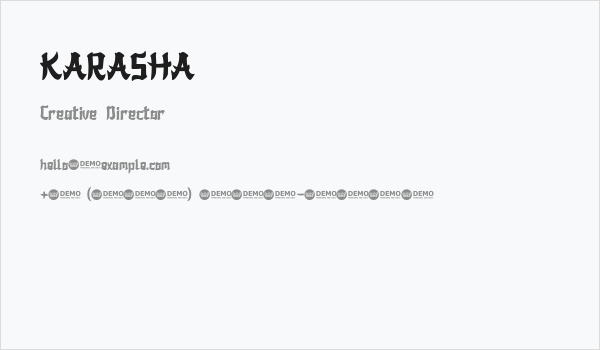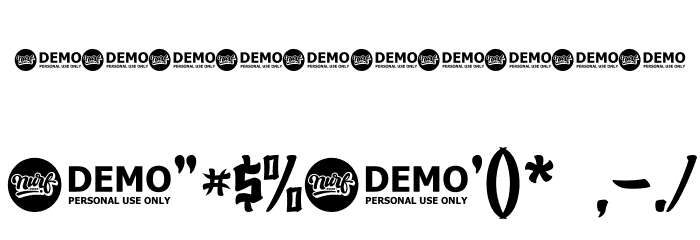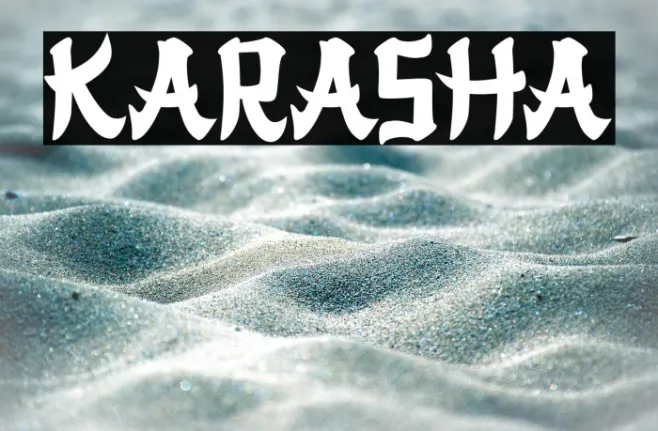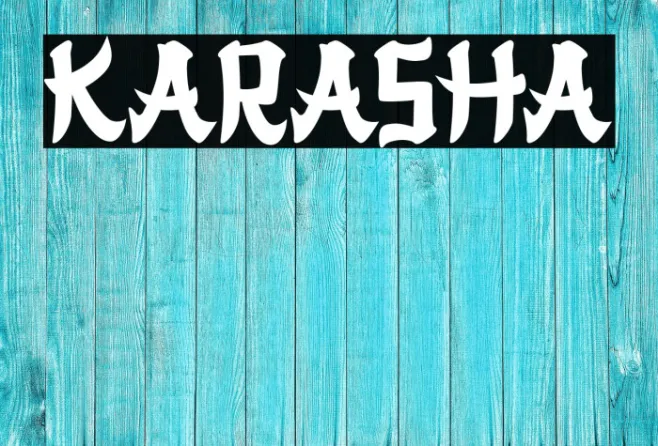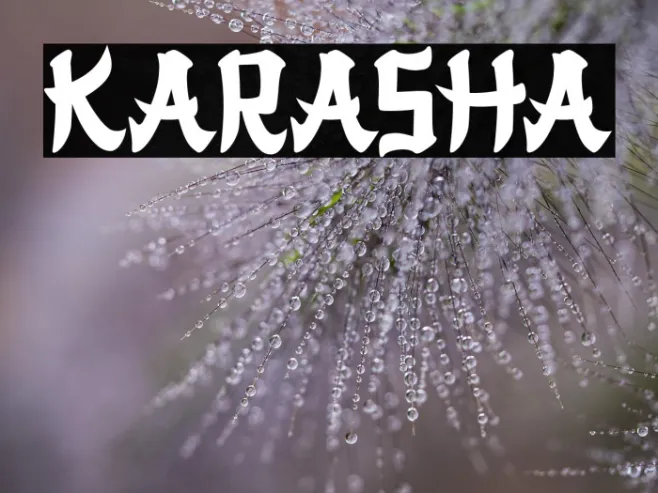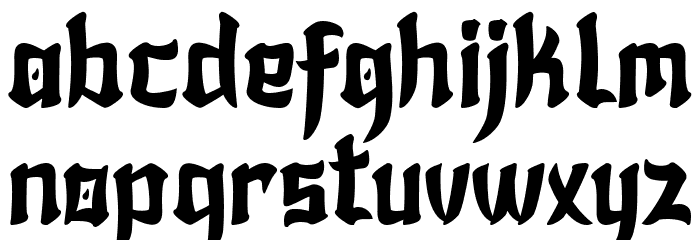
KARASHA Font
KARASHA Description
This font features a bold and striking design with a gothic influence, characterized by sharp, angular lines and dramatic curves. The uppercase letters exhibit a strong presence with their pronounced serifs and unique shapes, while the lowercase letters maintain a consistent style that complements the uppercase set. The numbers and special characters follow the same bold and expressive design, making them stand out. This font is ideal for projects that require a dramatic and eye-catching typeface, such as posters, logos, and headlines.
| Proposed Projects | Ideal for posters, logos, headlines, and any project needing a dramatic, eye-catching typeface. |